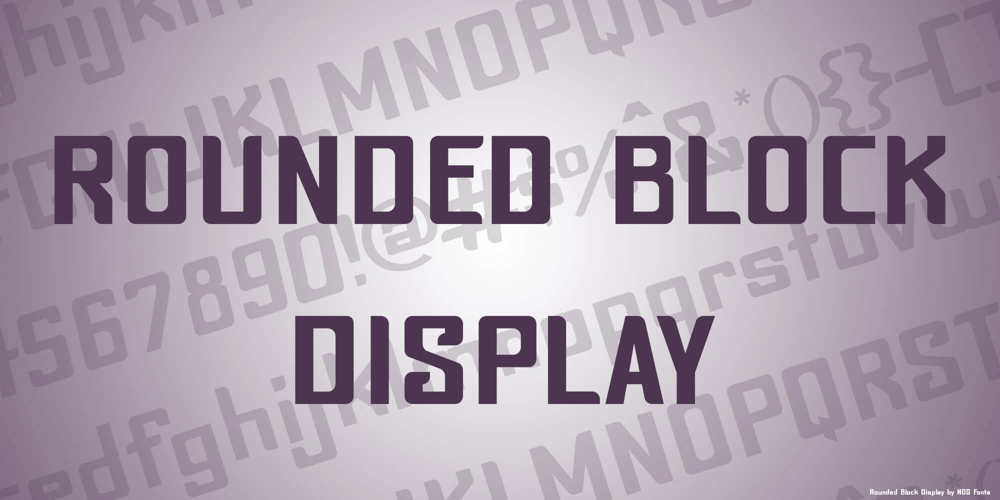
Rounded Block Display Font Family was designed by Alice Pettey and published by NDS Fonts. Rounded Block Display contains 1 styles and family package options. Rounded Block Display is a blocky san serif font perfect for headlines. Its clean facade and easy readability make this a great font to get your message across.